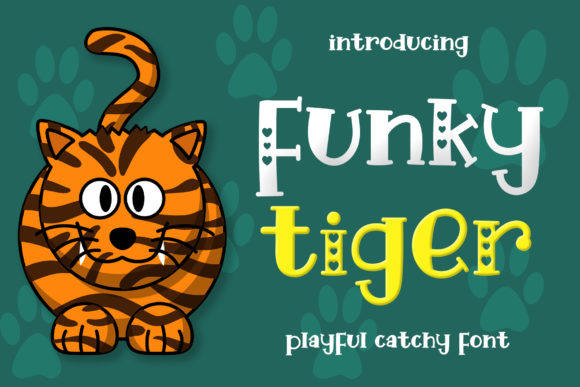
Unleash the captivating charm of "Funky Tiger," a display font that exudes a heartwarming aura like no other. Prepare to be smitten by its enchanting hearts delicately embedded within each letter, adding a touch of romance to your creative endeavors. Dive into a world of visual delight as you witness this modern font breathe life into your designs. From heartfelt messages to playful invitations, elevate your projects to extraordinary heights with Funky Tiger's irresistible allure.
Step into a realm of boundless creativity, where your imagination runs wild and your designs come alive. Let Funky Tiger's distinctive style ignite your passion and transform ordinary words into captivating expressions of art. Its modern flair adds an edge of sophistication, while the playful hearts infuse a sense of whimsy and joy. Whether you're crafting personalized greeting cards, designing eye-catching social media posts, or creating unforgettable logos, Funky Tiger will leave an indelible mark on your audience.
Indulge in the versatility of Funky Tiger, a font that effortlessly adapts to a myriad of design concepts. Its inherent charm knows no bounds, seamlessly blending with both elegant and playful aesthetics. Imagine the possibilities as you craft wedding invitations that radiate love and warmth, or create vibrant posters that capture the essence of youthful exuberance. Unleash your creativity and explore the endless opportunities that await with Funky Tiger as your trusted design companion.
Welcome to a world of endless creative possibilities with Funky Tiger. This remarkable display font is your gateway to unlocking a universe of captivating designs. Its intricate hearts, coupled with its modern aesthetic, will leave your audience spellbound. Whether you're a seasoned design professional or a passionate hobbyist, Funky Tiger is the key to unlocking your creative potential. Dive in and experience the magic unfold as your designs take on a life of their own.